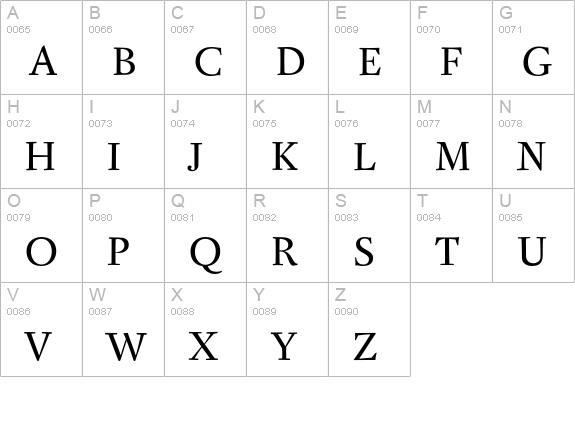
Antique Ancienne CE font is a beautiful and elegant typeface that exudes a sense of history and sophistication. With its intricate details and vintage charm, this font is perfect for adding a touch of old-world elegance to your designs. The timeless appeal of Antique Ancienne CE font makes it ideal for projects that require a classic and refined look. The best part is that Antique Ancienne CE font is available for free download at FontsMarket.com. Now you can easily enhance your projects with this exquisite font without any cost. Whether you're working on invitations, branding, or any other creative endeavor, Antique Ancienne CE font will bring a touch of vintage charm to your work. Download it today and add a touch of timeless beauty to your designs.